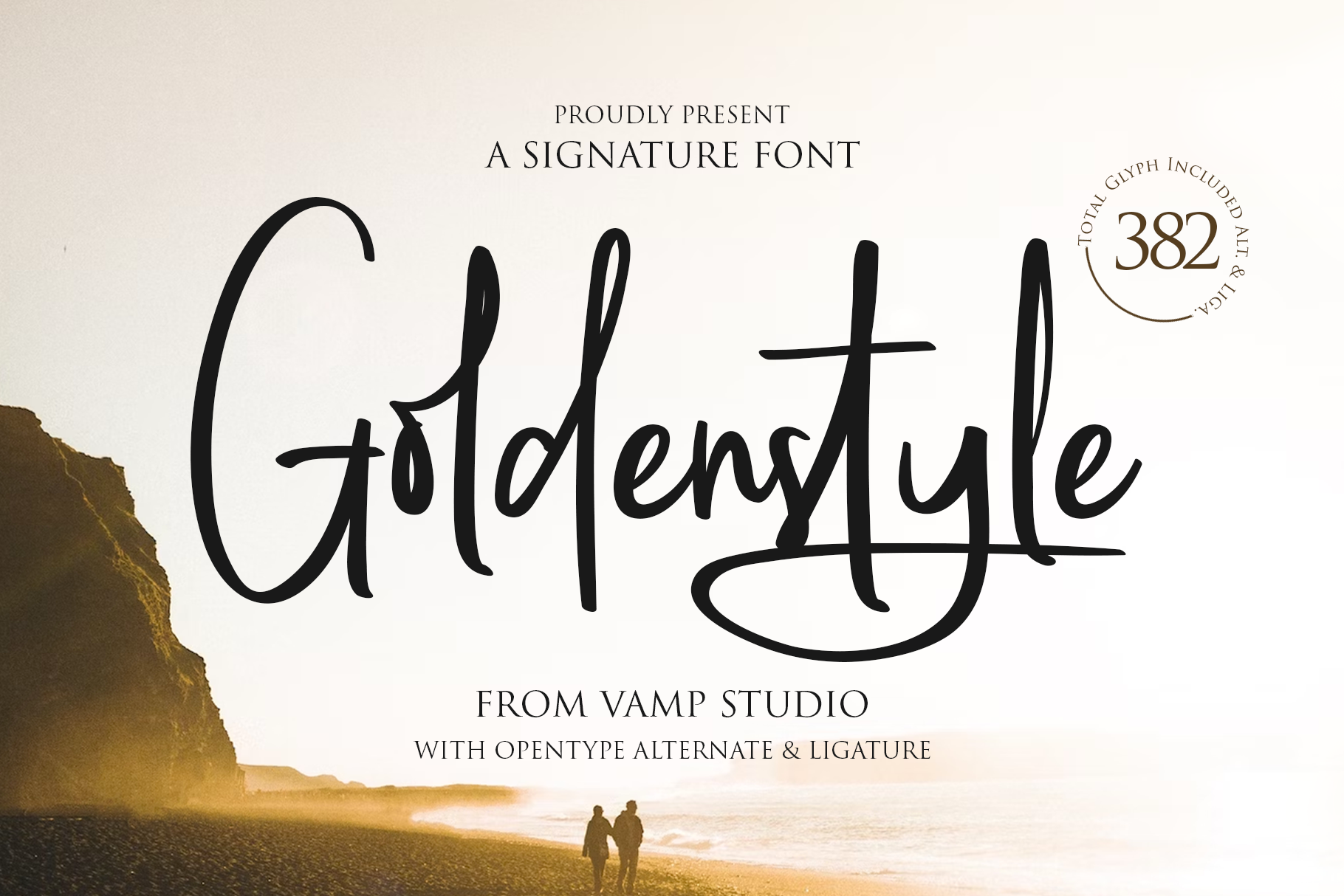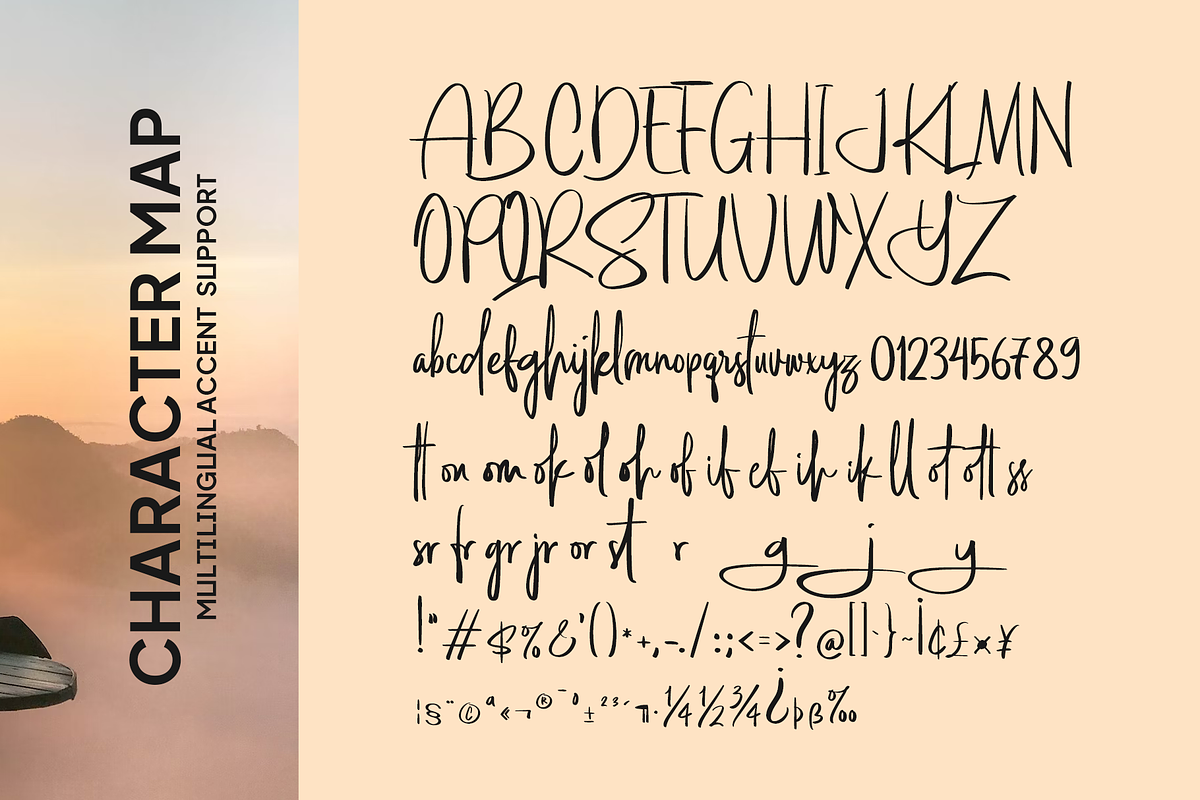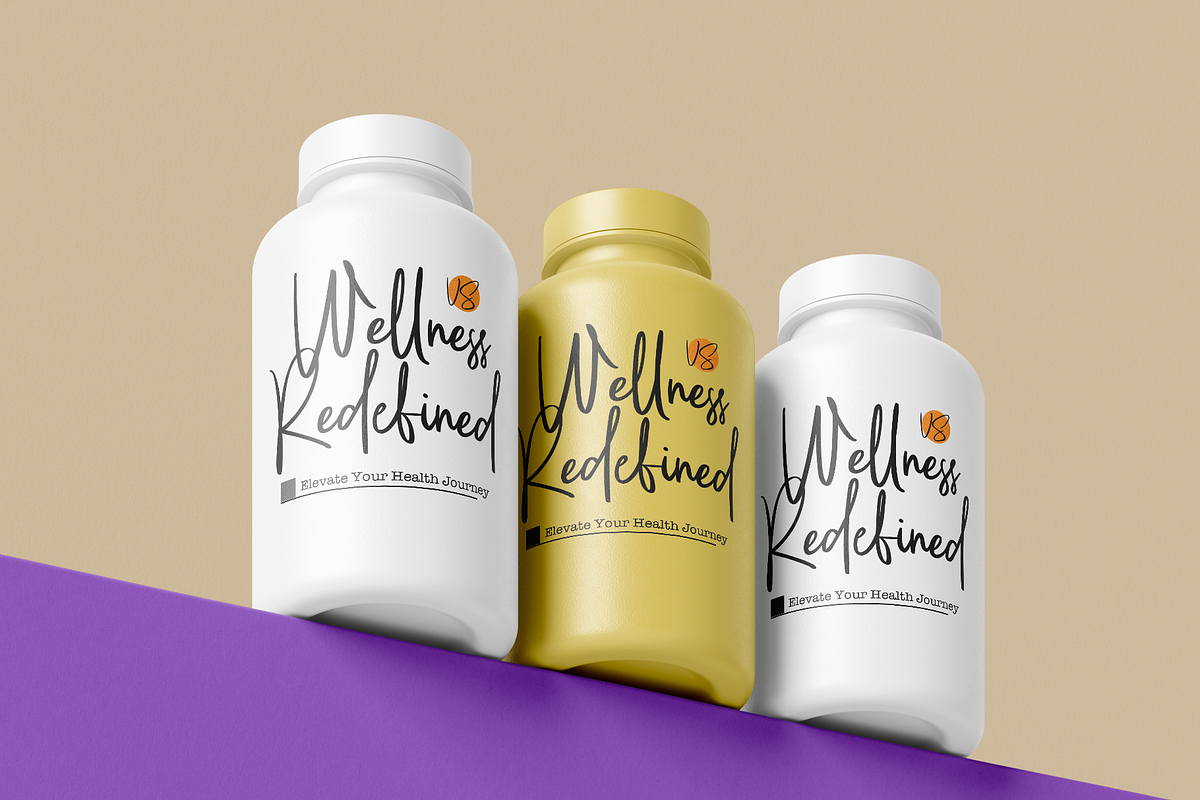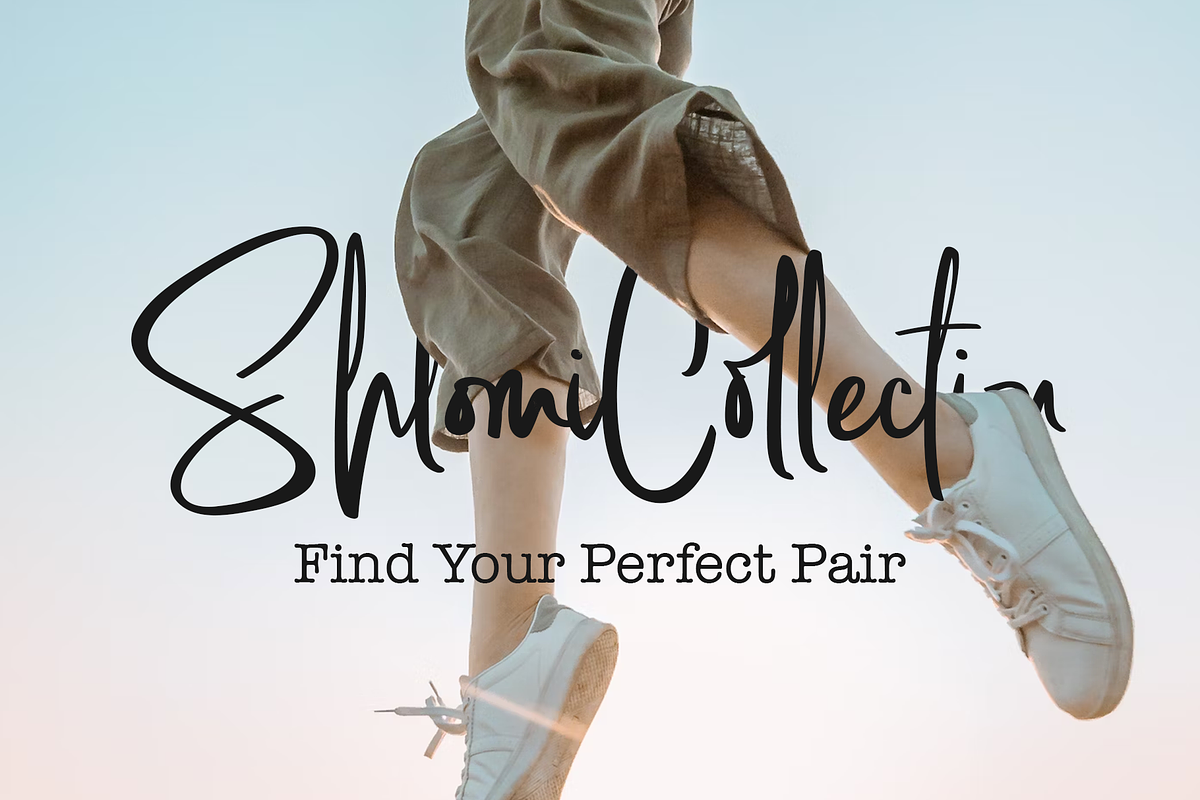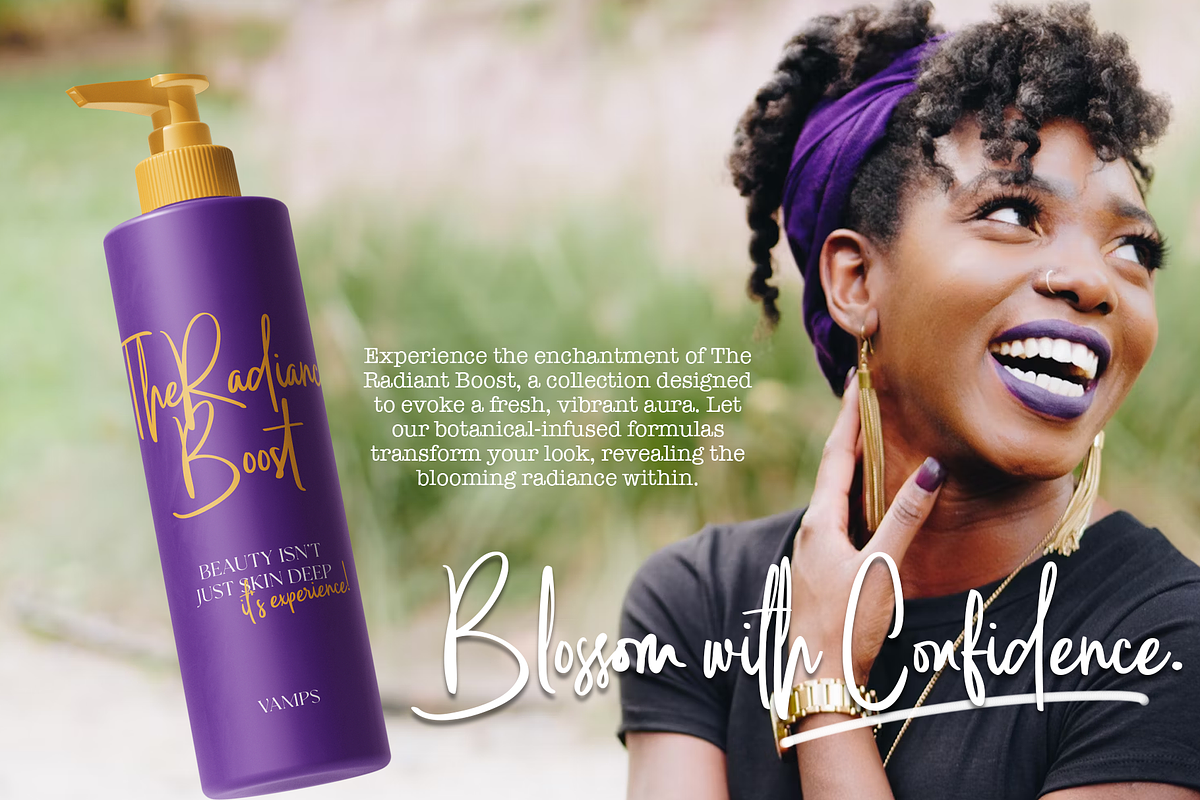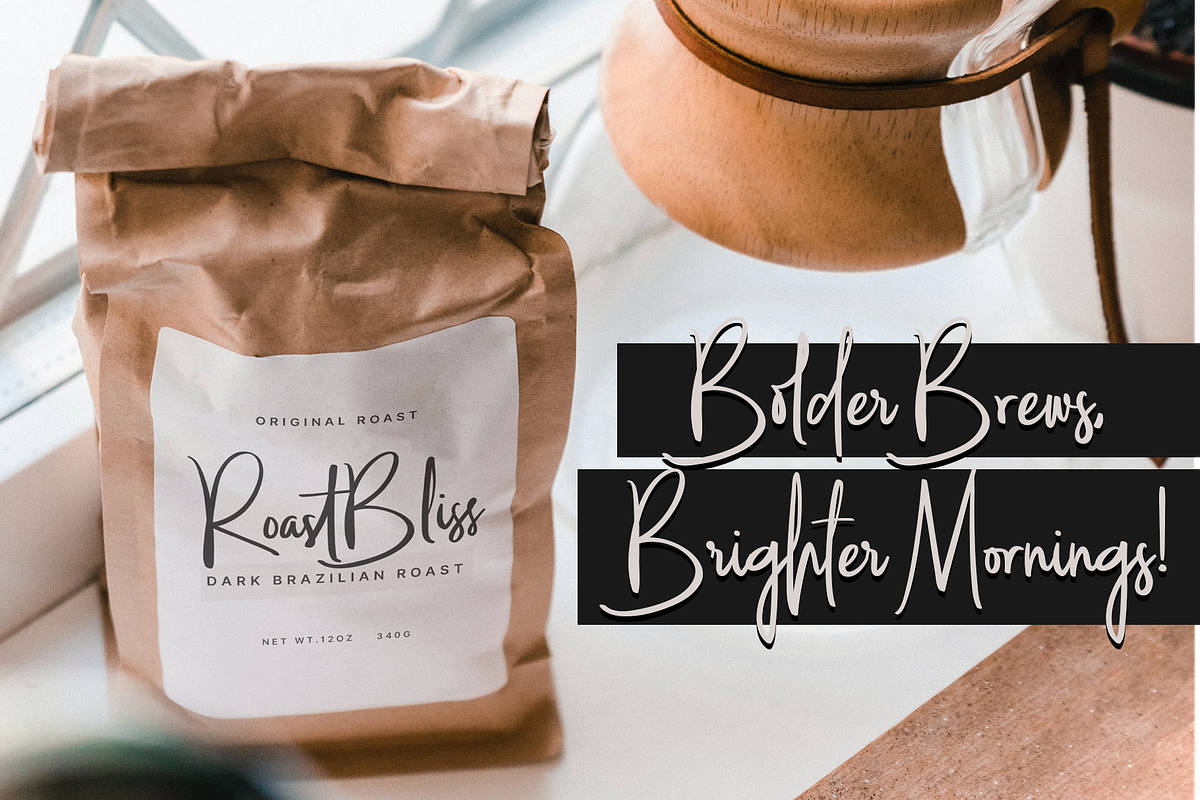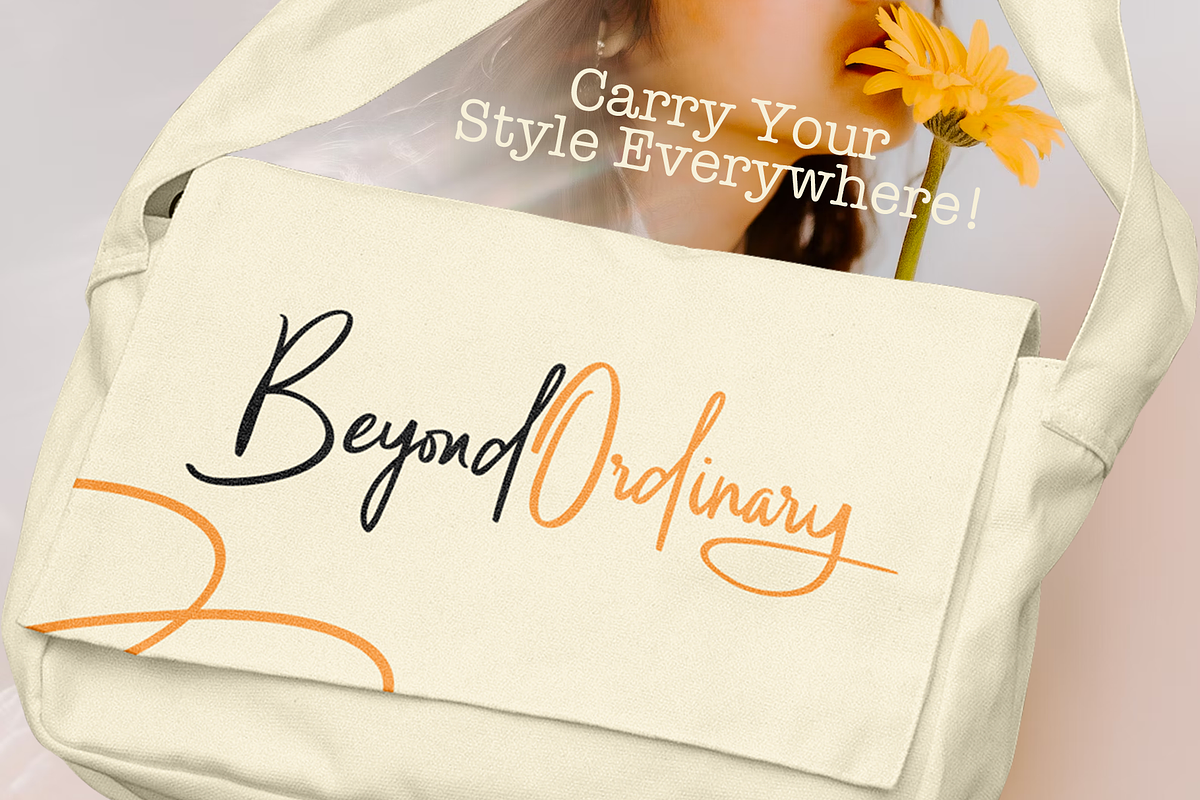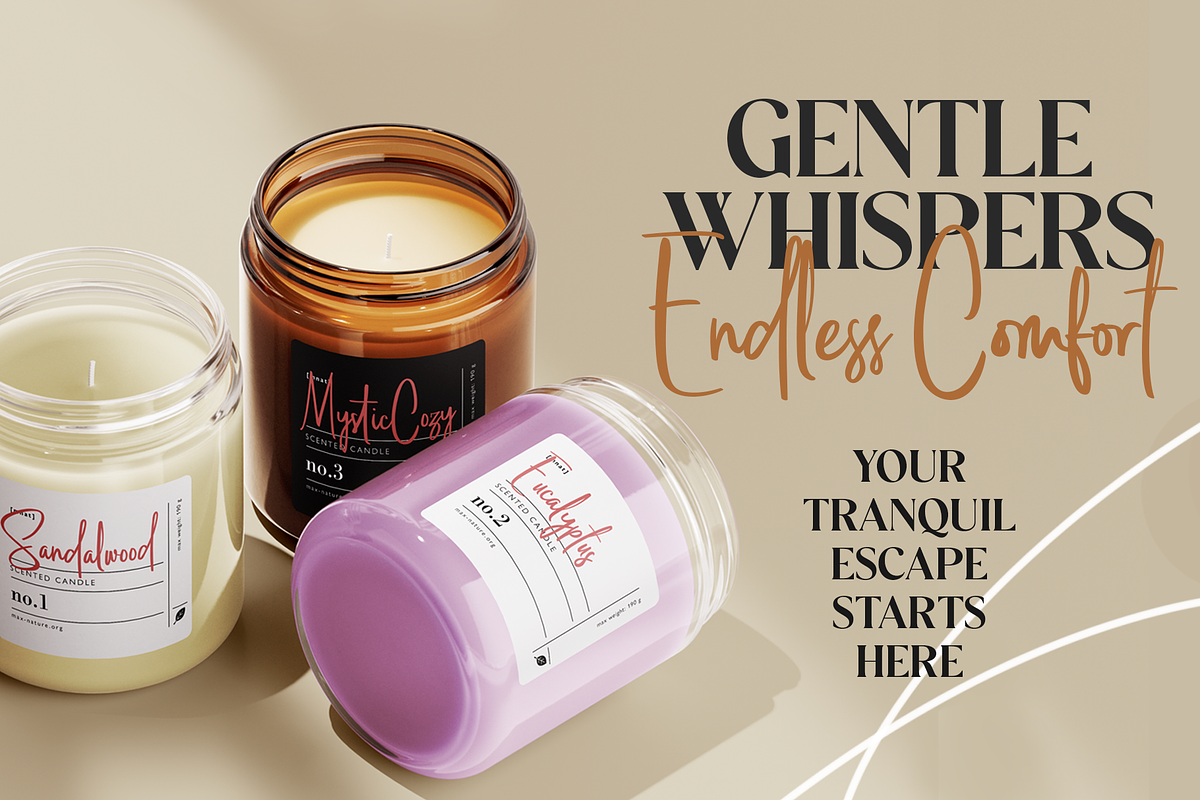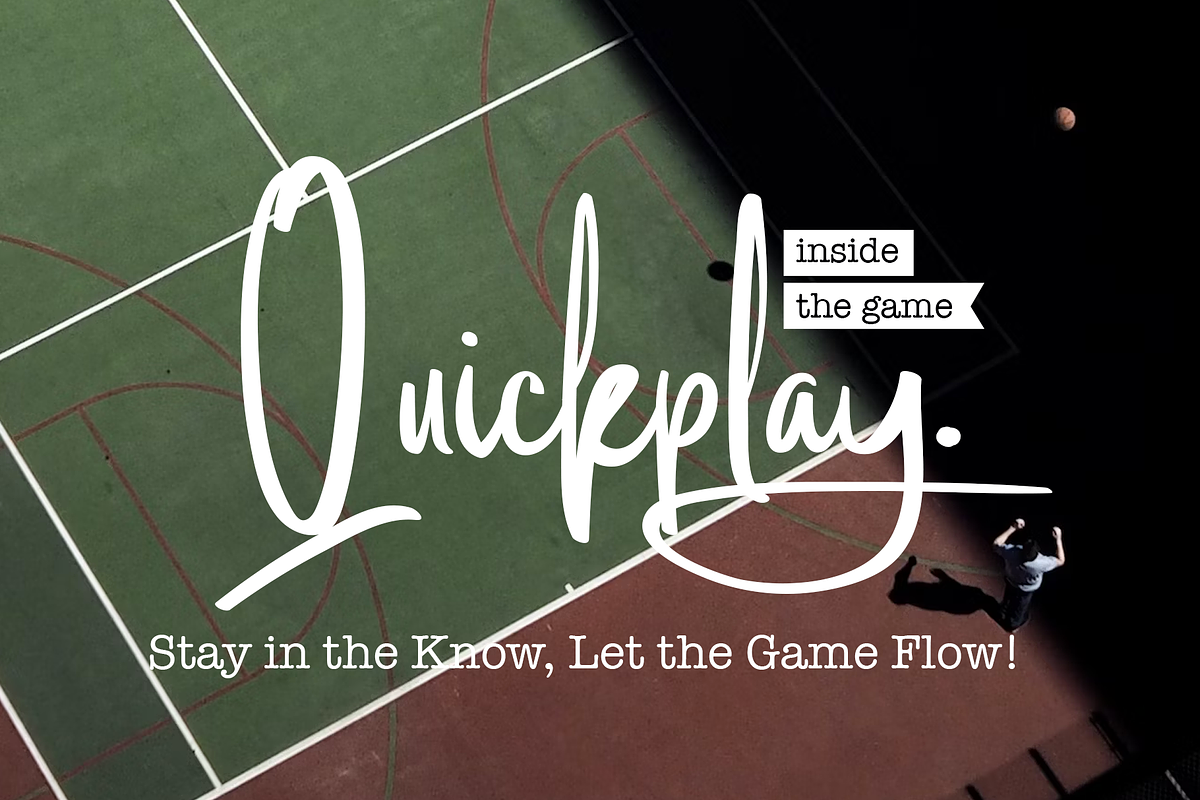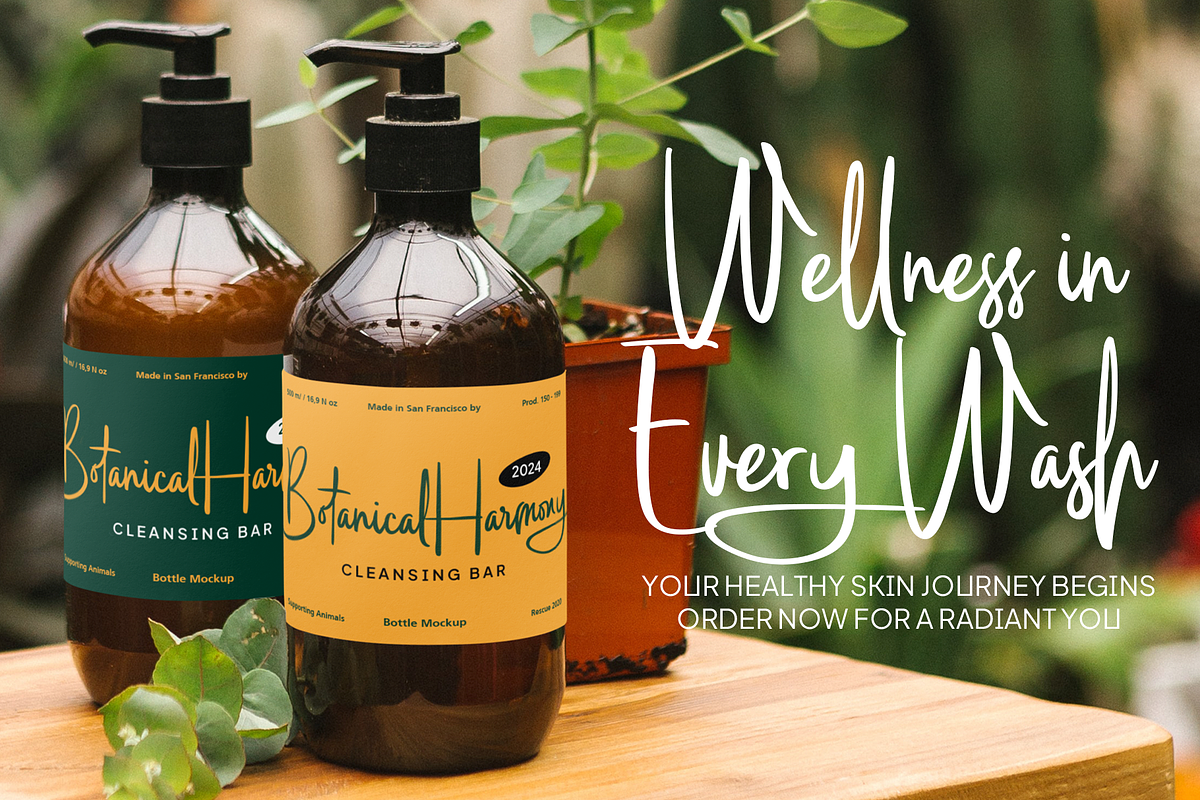
Goldenstyle Beauty Signature Font
Introducing "GoldenStyle Beauty Signature Font" – Embrace Timeless Elegance in Every Stroke!
Step into a world of refined sophistication with "GoldenStyle," a signature font crafted to exude elegance and grace in every curve and line.
Goldenstyle is perfect for branding projects, logo, wedding designs, social media posts, advertisements, product packaging, product designs, label, photography, watermark, invitation, stationery and any projects that need handwriting taste.
- Fonts include multilingual support for; Afrikaans, Albanian, Czech, Danish, Dutch, English, Estonian, -Finnish, French, German, Hungarian, Italian, Latvian, Lithuanian, Norwegian, Polish, Portuguese, Slovak, Slovenian, Spanish, Swedish.